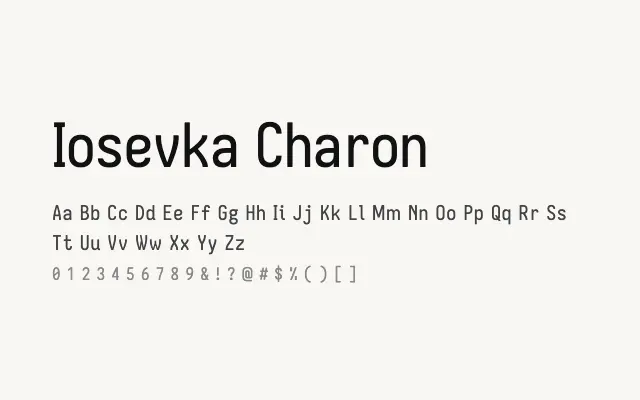
Iosevka Charon
A narrow, technically rigorous monospace drawn from the Iosevka project, built for coding and terminal use.
Iosevka Charon inherits the slender, space-efficient proportions that define the Iosevka family, making it particularly useful in split-screen coding environments and terminal applications where horizontal space is at a premium. Its inclusion of Armenian and Braille scripts marks it out as a broader multilingual technical resource. The four weights from Light to Bold provide a reasonable range for documentation and interface use alongside raw code.
Iosevka Charon is a highly customised variant of the Iosevka typeface family, featuring narrower proportions and a utilitarian, code-focused aesthetic. Its extensive character set including Armenian and Braille reflects the open-source project's broad technical ambitions.